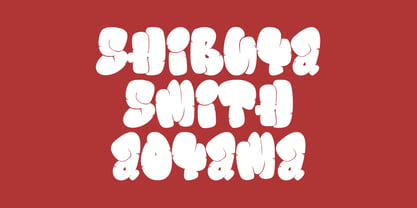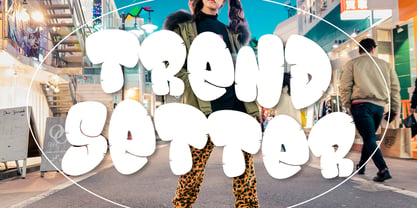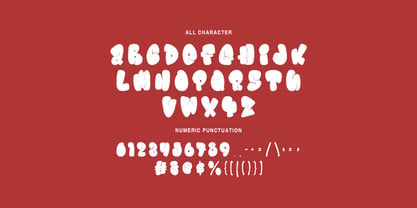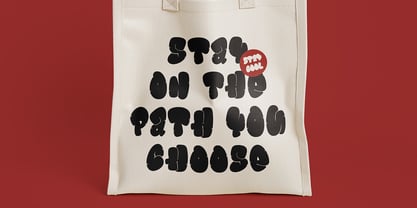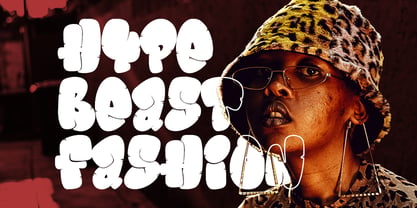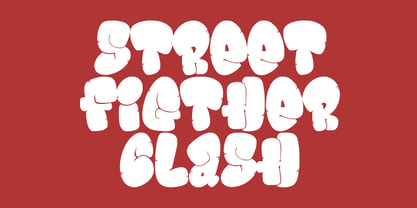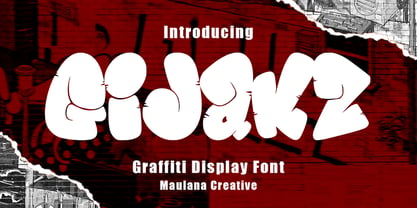
MC Gijakz
by Maulana Creative
The MC Gijakz Font Family was designed by Gilang Maulana and published by Maulana Creative. MC Gijakz contains 1 styles. More about this family
Gijaks is a graffiti display font. With bold stroke and fun character. To give you an extra creative work. Gijaks font support multilingual more than 100+ language. This font is good for logo design, Social media, Movie Titles, Books Titles, a short text even a long text letter and good for your secondary text font with sans or serif. Make a stunning work with Gijaks font.